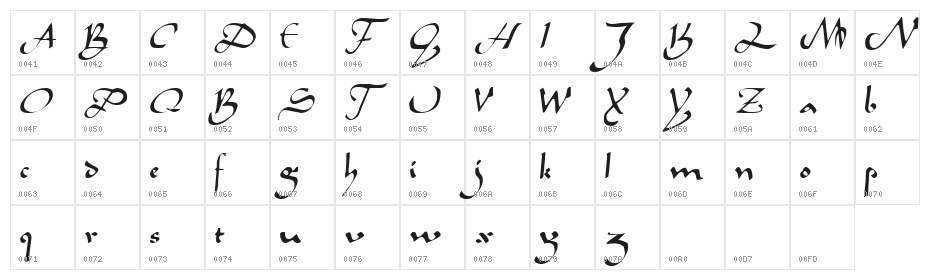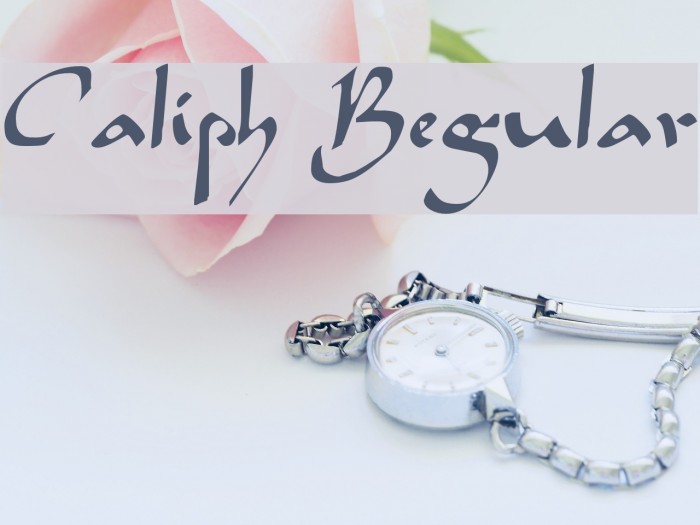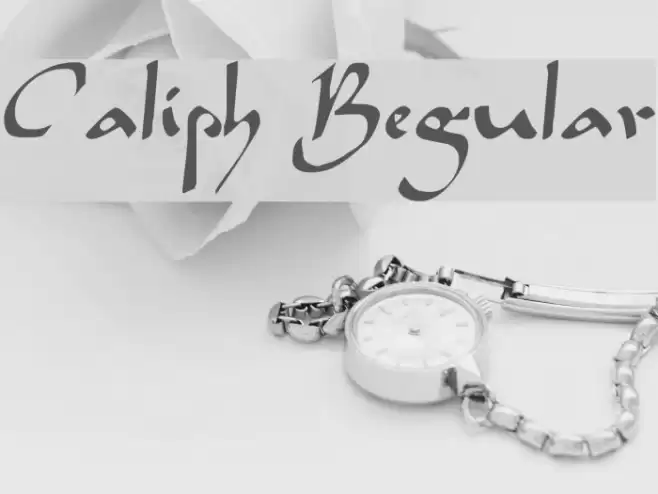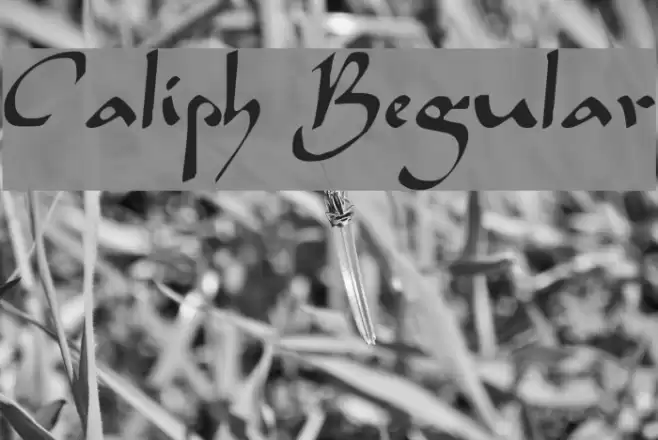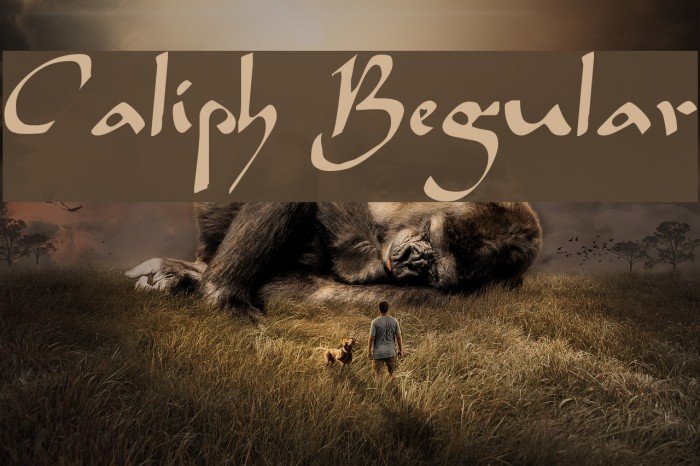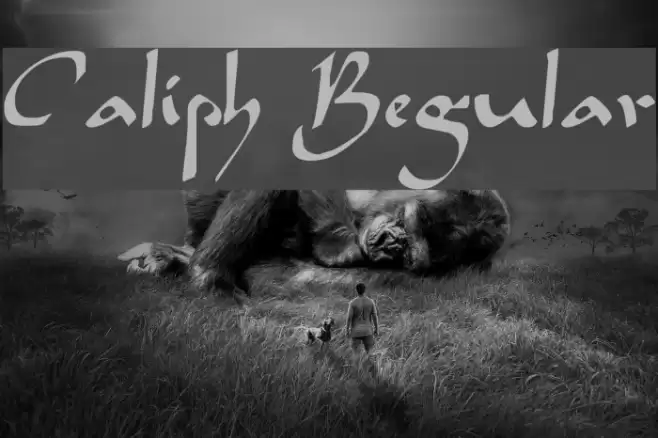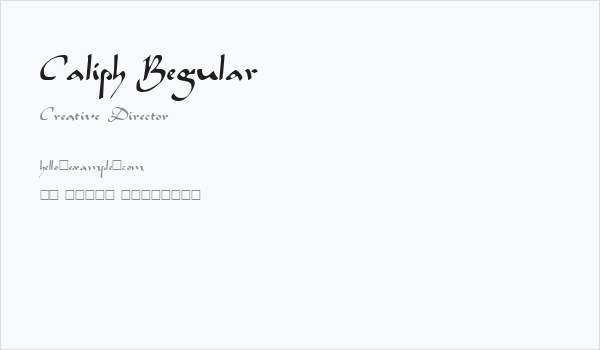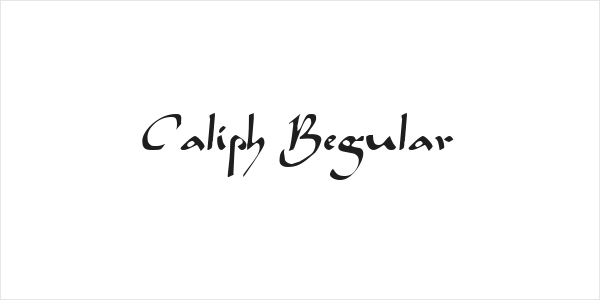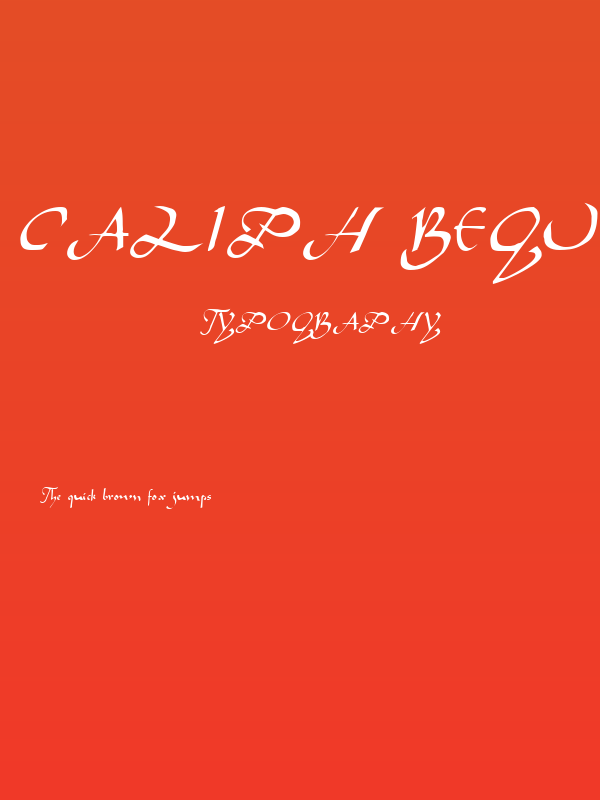
Caliph Regular Font
Caliph Regular Description
This font exhibits a unique blend of elegance and artistic flair, characterized by its flowing, calligraphic style. The uppercase letters are ornate, with sweeping curves and intricate details, while the lowercase letters maintain a consistent fluidity that complements the overall design. The numerals and special characters are crafted with the same attention to detail, ensuring a cohesive look across all elements. This font's distinctive style makes it ideal for projects that require a touch of sophistication and creativity.
Use CaseLogos, Invitations, Artistic projects
Proposed ProjectsIdeal for wedding invitations, luxury branding, artistic posters, and elegant packaging designs.